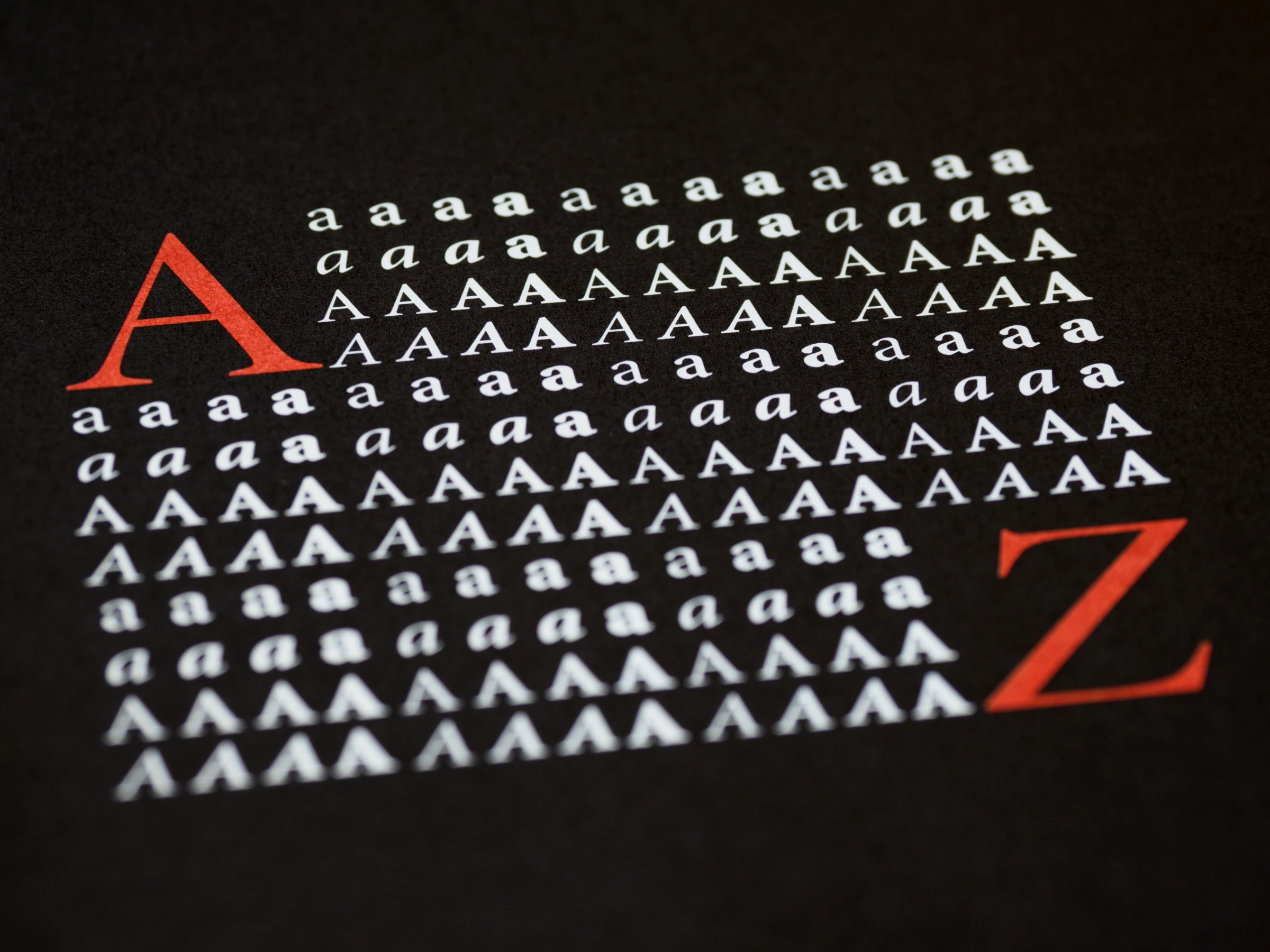
Typography is one of the most significant factors in design, yet it's often overlooked!
Whether you're designing a website, a business card, or a poster, the type of fonts you choose can make or break the entire project. Thankfully, there are now thousands of trending fonts free to use by designers, so you can get creative with brand typography!
But what is brand typography anyway?
It's the art and science of arranging type to make written language legible, readable and appealing when displayed.
Typography is not just about choosing a font; it's also about designing the text's spacing, size, weight and color. These elements combine to create a visual hierarchy that guides the reader's eye and helps them navigate the content.
Good typography can convey a message, set a tone and create an emotional response. It can make a design look professional, playful, elegant, or edgy. It can even distinguish between a website users love navigating and one they can't wait to leave. Thus, choosing the right brand typography is every designer's priority.
In this article, we've compiled the free trending fonts to help you create text designs that viewers can’t resist looking at, especially in your website design projects!
Whether you're a seasoned designer or a neophyte, these fonts will add a touch of creativity to your next design – without hurting your pocket.
A Collection of Trending Fonts Free for Designing Logos, Posters, Websites and More
Now that we know the essence of typography, it's time to dive into the exciting part – the fonts!
Here, we'll explore various trending free fonts that elevate your design projects. Take your picks from vintage and playful retro to elegant script fonts now!
Retro Fonts
First on our list of free trending fonts is the Retro fonts family! This style adds a touch of nostalgia to any design, and with the resurgence of vintage aesthetics, they have become more popular than ever! Here are great fonts to give your designs a retro flair:
- Bangers - This bold and lively display font features a 1950s style inspired by the lettering used on retro pulp magazine covers. It’s an ideal font for logos, headlines and posters!
- Castillo - Influenced by retro travel posters, Castillo features a bold and striking design perfect for sprucing up your titles, headings and signages.
- Pacifico - This casual script font was inspired by the 1950s American surf culture, featuring a playful and friendly style. Its stylish appearance makes it a popular choice for adding a vintage charm to invitations, product labels and social media graphics.
- Butcherman - This is one of the best retro fonts oozing with bold and fun aesthetics. It’s perfect for vintage-style posters and packaging designs! Bold typography is always an excellent choice for print designs – look at these print designs with bold fonts that stand out.
- Barrio - This rounded sans-serif font has a fun and festive style that will surely be a scene-stealer in social media graphics, product packaging and other creative projects. If you’re aiming for an upbeat design, this retro-themed trending free font is the way to go!
- Lemon Milk - This modern and condensed sans-serif font has a retro vibe – use it to add a lively character to your visuals in digital advertising, packaging and branding projects
- Old Standard - This serif retro font is based on old book typefaces from the late 19th and early 20th centuries. Its classic style and elegant design make it a superb choice for titles, headings and body text in print materials and websites.
- Riesling - This elegant, Art Deco-inspired font features tall, thin lettering – also a nice pairing for headlines and titles. No wonder it’s in the trending free fonts list!
- Riffic - This condensed display font rocks a retro aesthetic with a modern twist. Its bold and geometric design with a slightly curvy figure is perfect for funky headlines, logos and product packaging.
- Oswald - This sans-serif font was inspired by the typography used in classic posters and signage from the mid-20th century. Its clean and modern style makes it a versatile option for web and app interfaces. It’s also one of the best Google fonts for websites!
- Lazer 84 - This futuristic, neon-colored retro font is taken straight out of the colorful 80s and is marvelous for gaming or music projects.
- Norwester - Next on our retro fonts recommendations is this bold and geometric sans-serif font with a classic vintage feel. Its height, width and sharp edges make it an ideal choice for logos, headlines and posters.
- Gist Rough - This condensed, hand-drawn font has a distressed and vintage style that would look great in slogan brand statements. It would be a stunner in any branding, packaging and apparel design!
Script/Handwriting Fonts
Naturalistic and personalized look? Script/handwriting fonts are an easy choice!
The Script or Handwriting family deserves a spot on the best free trending fonts for adding a personal touch to any design. From elegant and formal to casual and playful, there's a font here to suit your handwritten aesthetic.
So, why not experiment with different fonts and see where they take you? Who knows, you might discover a new go-to style.